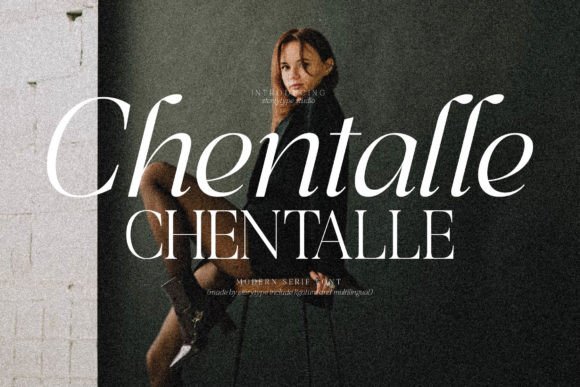
Behold Chentalle Font, a symphony of elegance and innovation. This modern serif font, meticulously crafted by Storytype Studio, will add a touch of sophistication and beauty to all your creative endeavors.
Chentalle's sleek lines and timeless aesthetic make it the perfect choice for elegant logos, book or movie title designs, fashion brands, magazines, and more. Its versatility extends to quotes, lettering, and any project seeking a dash of refinement.
Immerse yourself in the world of Chentalle and let its timeless beauty elevate your designs beyond the ordinary. This remarkable font possesses the unique ability to evoke emotions, captivate attention, and leave a lasting impression.
Unleash your creativity with Chentalle Font, a masterpiece that embodies grace, opulence, and timeless allure. Elevate your projects with this captivating serif font and see your designs transform into works of art.